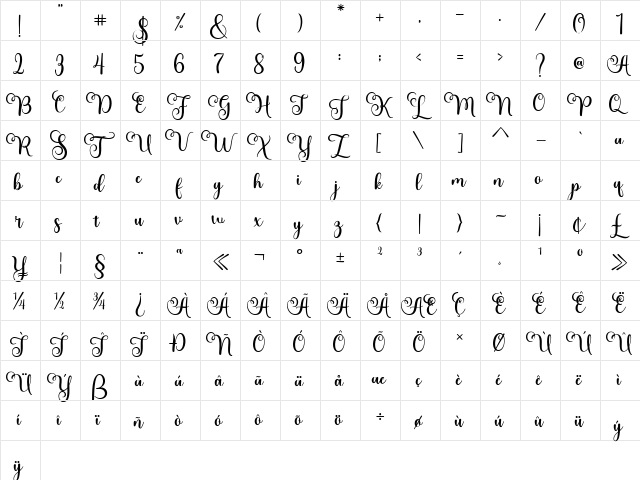
meltisia Regular
| Foundry | Rastype |
| Designer | Muhammad Taufik |
Design Context for meltisia Typeface
meltisia is a composed and adaptable typeface that performs quietly and consistently across a wide range of design contexts.